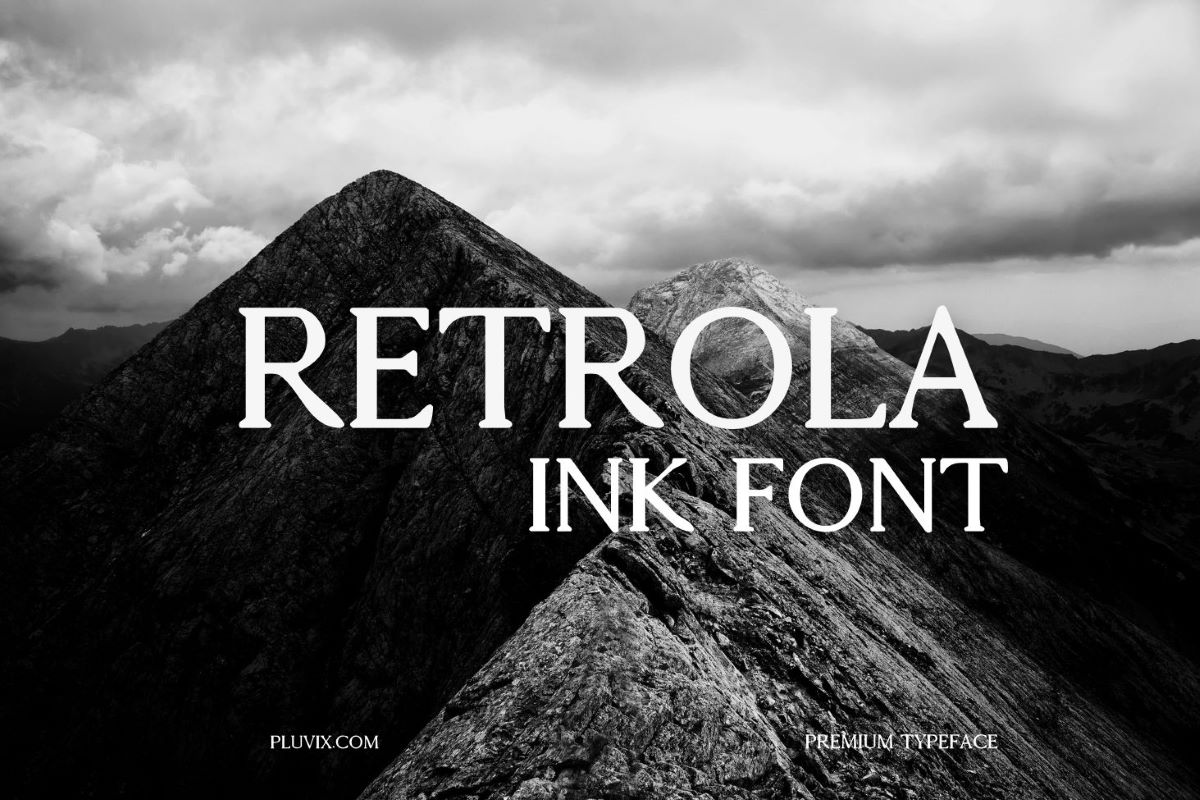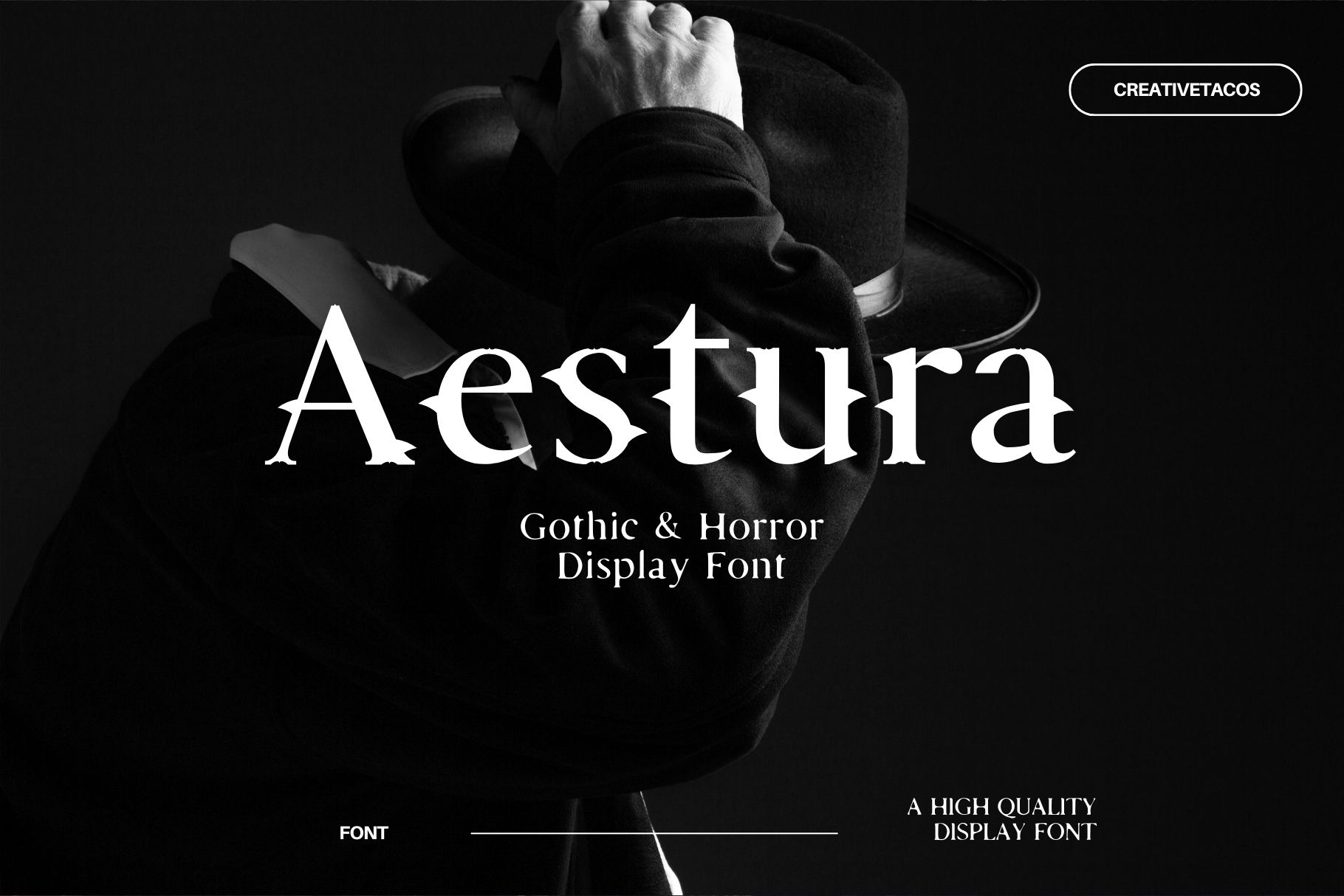
5. 25+ Best Fonts For YouTubers in 2025 (Free & Premium)
If you’re running a YouTube channel, you know that first impressions matter. One of the easiest ways to make a good impression is through the fonts you use. Fonts are not just for thumbnails—they play a huge role in your channel’s branding, whether it’s on your banner, intros, or end screens. Picking the right font can help make your content look more professional and appealing.
We curated a list of premium best fonts for YouTubers, that are a great investment for YouTubers who want to improve their content. These fonts give you more creative options, and better design, and can help you stand out from the competition. Whether you’re a vlogger, gamer, or running a business channel, the right font can set the tone and grab the audience’s attention.
This list covers 25+ premium fonts that are perfect for YouTubers. We’ll explain how each font can be used and why it might be the best choice for your specific content style. Let’s jump into it!
Best Fonts for Youtubers
Aestura Font – A Gothic & Horror Typeface
Aestura Font is a bold Gothic & Horror Display Font with a unique, eerie style. Designed for high-impact visuals, it features sharp edges and dramatic curves, good for horror themes, dark branding, movie posters, and gothic-style designs. The font blends classic serif elements with a haunting twist, giving your text a mysterious and powerful look. Whether you’re working on spooky graphics or elegant gothic aesthetics, Aestura brings a striking presence to your work.
Ackley Sans Serif Typeface
Create beautiful titles and intros using this beautiful typeface, you can use it on apps like Canva pro and Kittl.
Retrola Ink Font
Retrola Ink Font is a classic serif with a vintage twist. It’s elegant, easy to read, and great for branding, magazines, movie posters, and book covers. This font brings a bold and refined touch to any design.
Tauha Handmade Brush Font
Tauha Handmade Brush Font has a natural, bold look that’s perfect for vloggers or creators who want a more personal and approachable feel. The brushstroke style makes it feel like someone just painted it by hand, which works really well for channels that focus on DIY, art, or even lifestyle content. This font adds a friendly, yet creative vibe to your videos.
Sukoon Holiday Font
Sukoon Holiday Font is fun, festive, and relaxed. If you’re creating holiday-themed videos or travel vlogs, this font can bring in that cheerful, laid-back vibe. Its smooth, curvy letters make it perfect for festive content like holiday greetings, special events, or even countdown videos. It adds warmth and personality to your visuals.
Talisha Holiday Font
Talisha Holiday Font is another holiday-themed font that’s perfect if you’re planning to create seasonal content like Christmas vlogs or special holiday episodes. The font’s playful, decorative style is great for thumbnails and intros where you want to give off a fun and festive feel without overdoing it.
Plessis Brush Display Font
If you need something a bit more bold and edgy, Plessis Brush Display Font is a great option. It has thick, rough strokes that give it a gritty, handmade feel. This font is ideal for action-packed channels like gaming or adventure content. It’s perfect for grabbing attention on thumbnails and banners with its raw, energetic vibe.
Punible Christmas Font
Punible Christmas Font is designed for creators who are all about the holidays. If you’re running a channel that focuses on Christmas crafts, holiday vlogs, or festive cooking, this font adds a fun, decorative touch to your videos. The playful lettering style makes it stand out and sets the right mood for the season.
Navette Christmas Font
Navette Christmas Font is another solid choice for holiday-themed content. It has soft, rounded edges that give it a friendly, welcoming feel. If you’re creating family-friendly or cozy holiday videos, this font is ideal for your channel. It’s also great for creating festive intros and overlays for your videos.
Okoubaka Christmas Font
Okoubaka Christmas Font is for those who want a bit more elegance in their holiday content. This premium font has decorative flourishes that make it feel more polished and sophisticated. It’s great for lifestyle, fashion, or cooking channels that want to bring a touch of class to their Christmas or holiday videos.
Pahtan Christmas Font
Pahtan Christmas Font is another elegant holiday font. The clean, smooth lines make it perfect for professional-looking content. Whether you’re doing Christmas shopping hauls or gift-wrapping tutorials, this font adds a sophisticated, festive touch. It’s simple but stylish and can give your thumbnails a polished, high-end look.
Motadil Christmas Font
Motadil Christmas Font is a bit more playful and fun, making it great for family or kid-friendly channels. It’s decorative but not too flashy, and works well for creating cheerful holiday vibes in your video titles, thumbnails, and intros. If your channel is all about spreading holiday joy, this is a great font choice.
Jaani Holidays Font
Jaani Holidays Font brings a modern twist to holiday-themed fonts. It’s clean, stylish, and easy to read, making it perfect for YouTubers who want a more minimalistic look while still capturing the holiday spirit. This font would work well for travel vlogs, lifestyle content, or any channel that wants a contemporary look during the holiday season.
Mueda City Display Font
Mueda City Display Font is a bold, modern font that’s great for urban and lifestyle content. It’s sharp and sleek, making it perfect for tech reviews, travel vlogs, or any YouTube channel that’s aiming for a trendy, city-inspired look. This font will give your thumbnails and banners a cutting-edge feel.
Rock Bottom Handwritten Font
Rock Bottom Handwritten Font is perfect for YouTubers who want a casual, handwritten look. It’s great for personal vlogs or channels where you want to feel approachable and authentic. The handwritten style makes it feel like you’re writing a note directly to your audience, which can help create a stronger connection with viewers.
Naughty Monster Handmade Font
If your content is all about fun and games, then Naughty Monster Handmade Font is a great fit. This quirky, playful font is perfect for kids’ channels, gaming content, or anything lighthearted. It has a unique, childlike quality that makes your channel look friendly and entertaining.
Cason Sans Serif Font
Cason Sans Serif Font is clean and modern, making it ideal for tech or business YouTubers. The simplicity of the font gives your channel a professional and polished look, while still being easy to read. It’s a versatile font that can work across a wide range of content, from tutorials to product reviews.
Draper Sans Serif Font
Draper Sans Serif Font is another great option for minimalistic channels. If you like simple, clean designs, this font will work perfectly for your branding. It’s ideal for YouTubers who want a sleek, no-fuss look for their thumbnails and banners, especially for tech or educational content.
Aaiss Christmas Font
Aaiss Christmas Font is playful and festive, making it perfect for seasonal content. Whether you’re sharing holiday recipes, DIY projects, or family vlogs, this font will help capture the spirit of the season. It adds a fun, lighthearted touch to your thumbnails and video titles.
Sayfull Sans Serif Font
Sayfull Sans Serif Font is a minimalistic, clean font that’s great for modern YouTube channels. If your content focuses on design, tech, or education, this font provides a professional and contemporary look. It’s easy to read and gives your channel a sleek, polished vibe.
Alvaro Signature Handwritten Font
Alvaro Signature Handwritten Font is perfect for YouTubers who want a more personal, signature-style font. It adds an elegant, handwritten touch to your videos, making it ideal for lifestyle, beauty, or fashion channels. This font can give your channel a sophisticated and classy feel.
Zitter Serif Font
Zitter Serif Font is a great choice for creators who want a classic, timeless look. Serif fonts tend to look more formal and traditional, making this one perfect for educational or historical content. It’s professional, easy to read, and adds a touch of authority to your branding.
Cagke Display Font
Cagke Display Font is bold, expressive, and designed to grab attention. It’s great for creative YouTube channels, especially those focused on art, design, or entertainment. If you want your thumbnails to stand out and get noticed, this font is a fantastic choice.
Brotherhood Brush Script Font
Brotherhood Brush Script Font is rugged and energetic, making it perfect for action-packed content. If your channel is about sports, fitness, or outdoor adventures, this brush script font adds excitement and movement to your thumbnails. It’s bold and dynamic, just like your content.
Yessica Sans Serif Font
Yessica Sans Serif Font is modern and clean, making it perfect for a wide variety of content styles. It’s versatile and can work well for tech, lifestyle, or educational channels. Its simple design makes it easy to read and gives your channel a polished, professional look.
Raanan Sans Serif Font
Raanan Sans Serif Font is sleek and modern, ideal for YouTubers who want a trendy, stylish font. Whether you’re doing tech reviews, tutorials, or lifestyle content, this font helps create a professional appearance while keeping things fresh and modern.
Haeley Handwritten Font
Haeley Handwritten Font adds a personal touch to your content with its casual, handwritten style. This font is great for personal vlogs, DIY channels, or any content where you want to feel relatable and down-to-earth. It’s friendly, approachable, and perfect for connecting with your audience.
Isaac Display Font Family
Isaac Display Font Family is bold, unique, and perfect for grabbing attention. Its strong, creative style is ideal for YouTubers who want to make a statement with their thumbnails and banners. This font is perfect for channels focused on design, art, or entertainment where standing out is key.
Faresego Script Typeface
Faresego Script Typeface is elegant and flowing, making it a great option for YouTubers in the beauty, fashion, or lifestyle niches. The script style gives a personal and sophisticated touch to your thumbnails and video intros. It’s perfect for channels where aesthetics are key, such as makeup tutorials, home decor, or travel vlogs. The cursive font adds a sense of luxury and refinement, helping your channel look more polished and professional.
Edingu Sans Serif Font Family
Edingu Sans Serif Font Family is a versatile, modern font that works for almost any type of YouTube channel. It has a clean, minimalistic design that makes it perfect for tech reviews, educational content, or business channels. The font is easy to read, which makes it great for thumbnails, video titles, and intros where clarity is essential. Its professional look will give your channel a sleek and up-to-date appearance, making it ideal for creators who want a straightforward yet stylish font.
Pluvix Luxury Font – A Classy Free Font
Pluvix Luxury Font displayed on a dark, silky fabric background. The bold, elegant typography highlights its premium and stylish design.
Pluvix Luxury Font is a stylish and bold font that is simple to use. It makes your designs look neat and professional. Whether you’re creating a logo, invitation, or social media post, this font adds a classy feel with ease.
Conclusion
Choosing the right font can make a huge difference in how your YouTube channel looks and feels. The fonts we’ve covered here, all premium options, are great for giving your content a professional and unique touch. Whether you’re going for fun and playful or sleek and modern, there’s something on this list that can help you elevate your branding in 2025. Take some time to experiment with these fonts and find the one that best fits your channel’s personality!